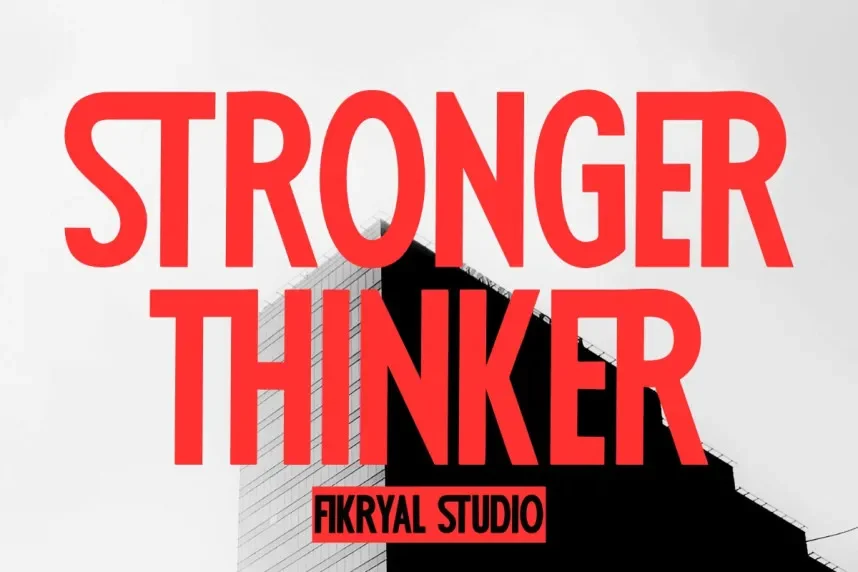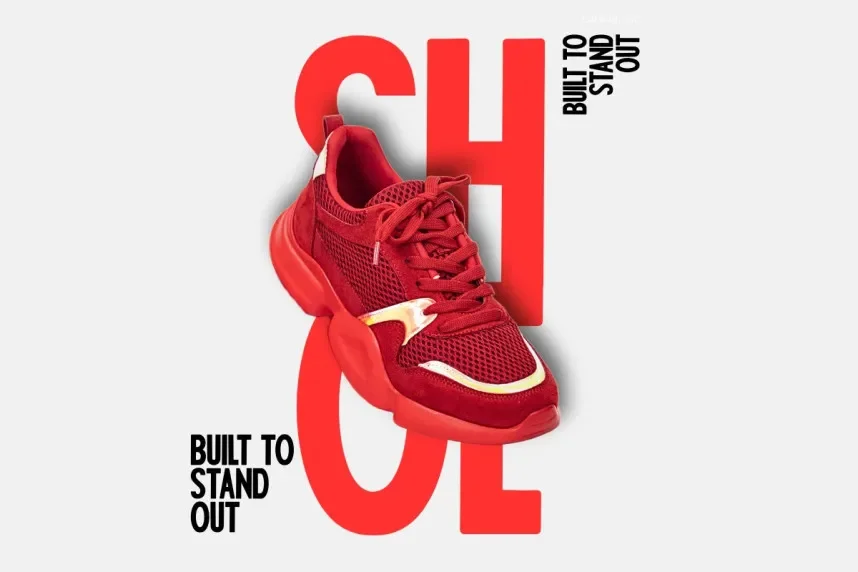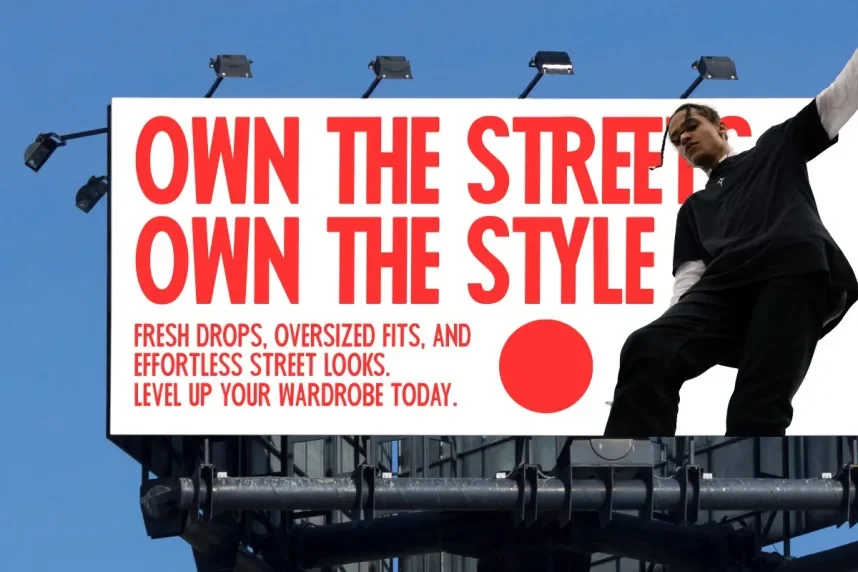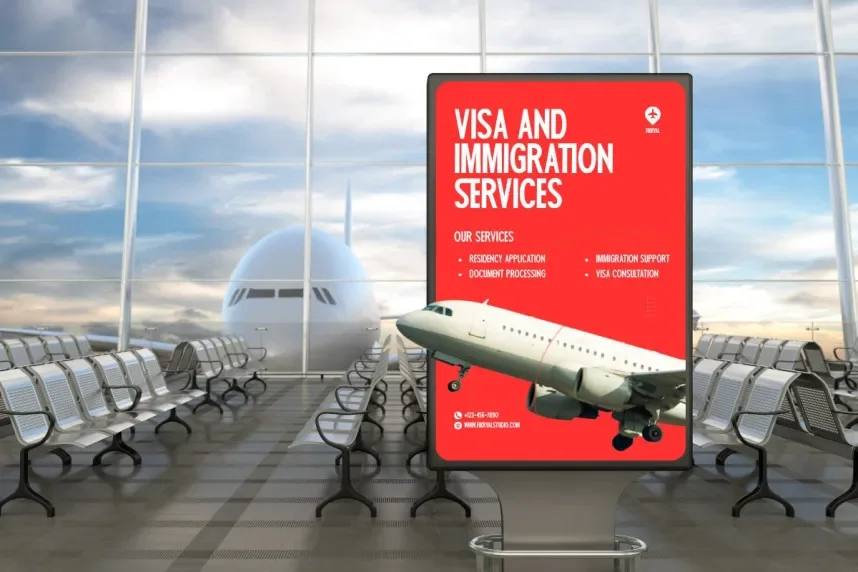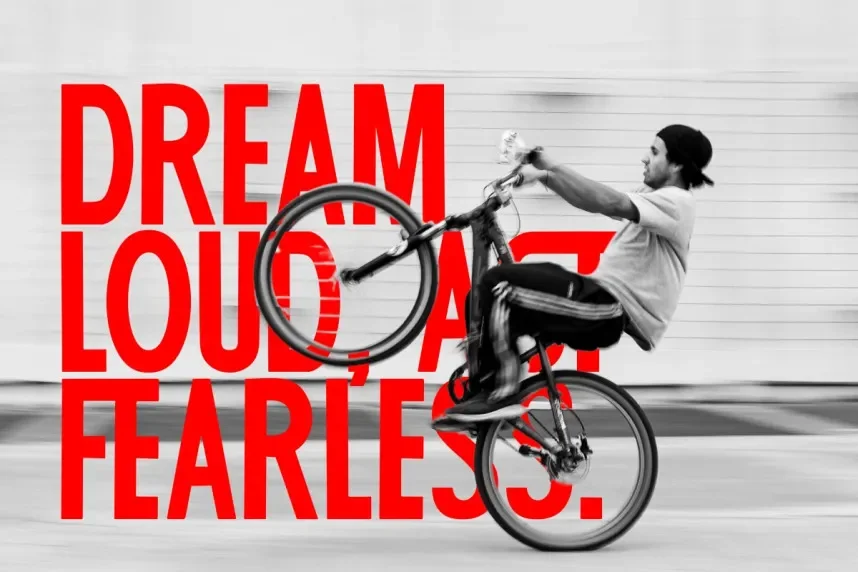
Stronger Thinker Font is a condensed display typeface that addresses readability and visual impact in professional headlines and branding projects. Designers often need condensed letterforms to fit longer text into limited spaces without losing clarity.
This font features tight spacing, uniform stroke widths, and custom ligatures for improved letterflow. Its clean, minimal design emphasizes uppercase and short phrases, making it suitable for logos, titles, and UI headers. The condensed proportions maximize space efficiency while maintaining boldness.